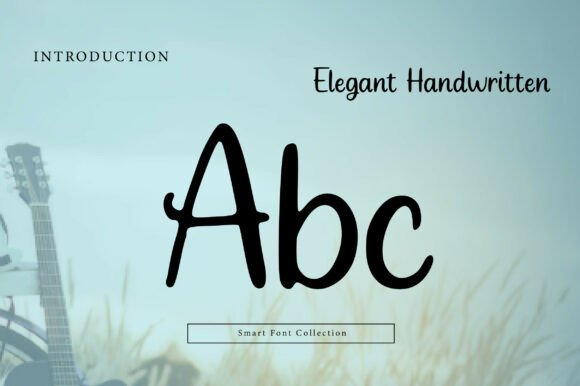
Introduction to Elegant Handwritten Font
Sophisticated Simplicity for the Modern Creative The Elegant Handwritten font strikes a masterful balance between casual legibility and high-end sophistication.
Unlike more chaotic scripts, this Elegant Handwritten typeface offers a tall, condensed architecture that feels organized yet deeply personal It is the visual equivalent of a perfectly maintained journal entry, making it an indispensable tool for lifestyle brands and editorial layouts.
Key Features of Elegant Handwritten Font
Why Choose Elegant Handwritten Font?
Elegant Handwritten Font offers exceptional quality and versatility, making it a valuable addition to your design toolkit. Whether you’re creating for personal projects or commercial use, Elegant Handwritten Font delivers professional results.